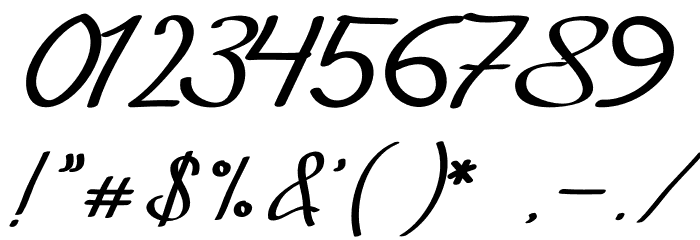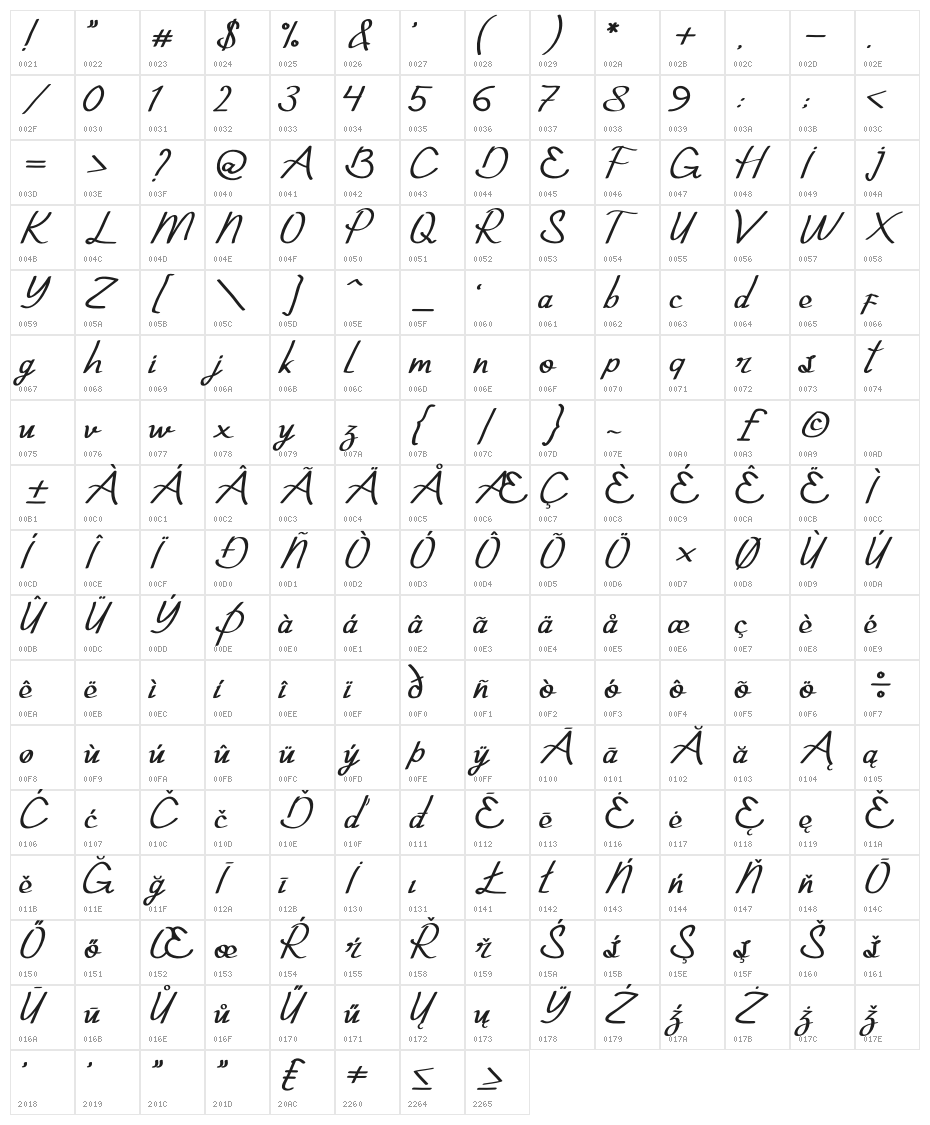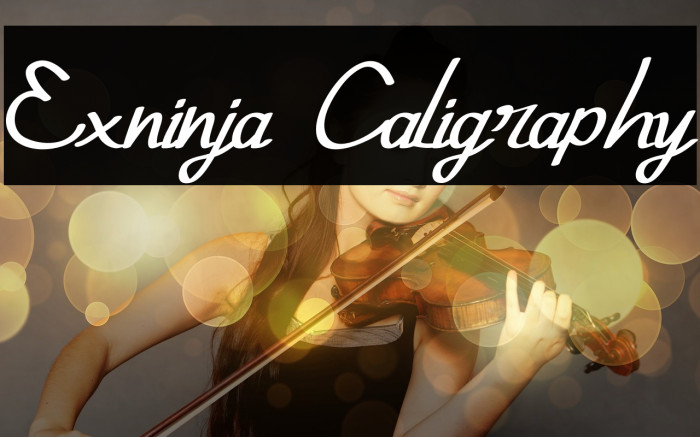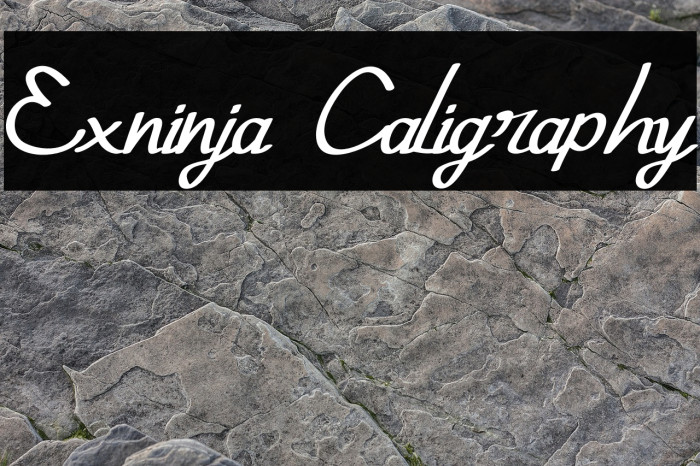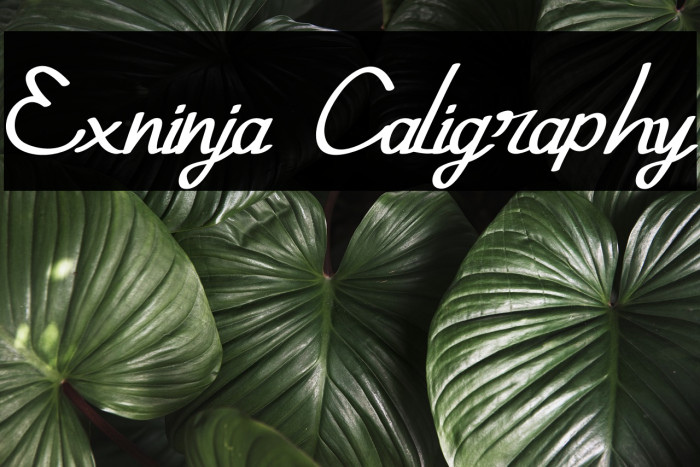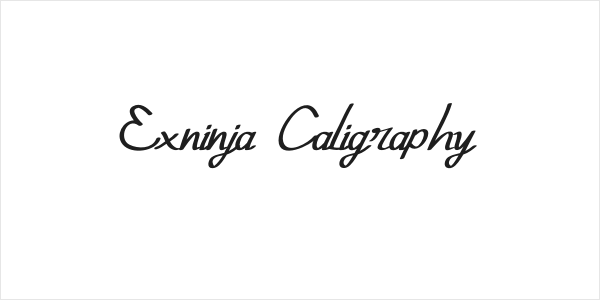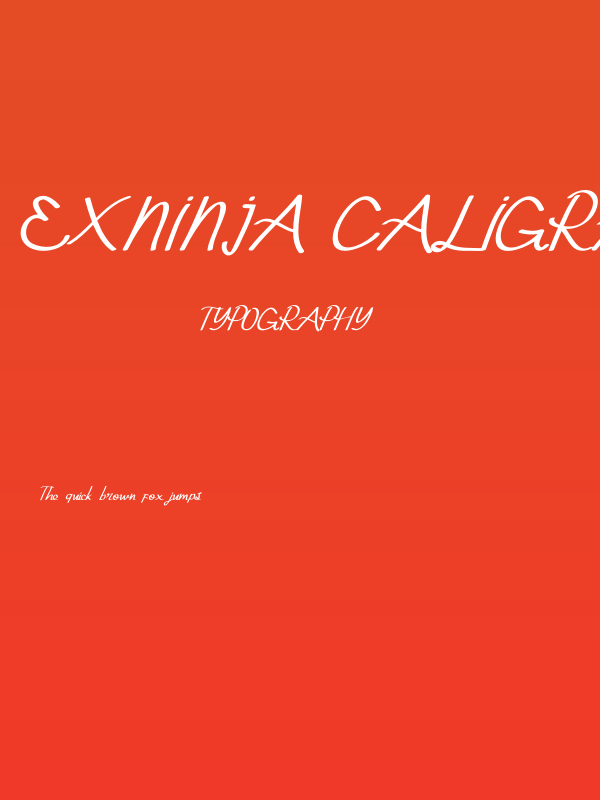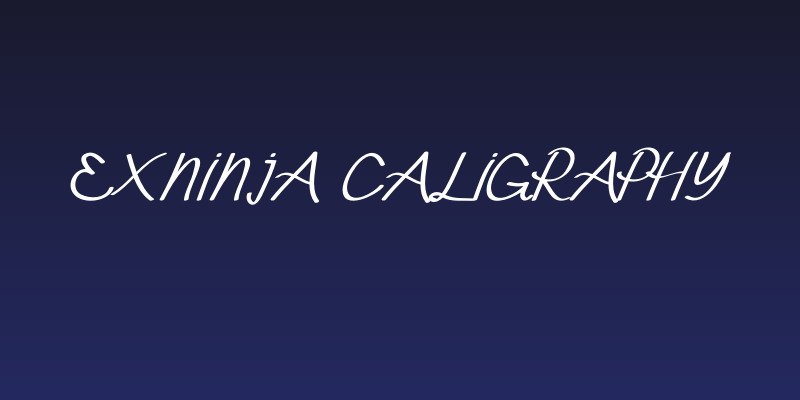
Exninja Caligraphy Font
Exninja Caligraphy Description
This elegant script font features a flowing, cursive style with a modern twist. The uppercase letters are tall and slightly slanted, while the lowercase letters maintain a consistent fluidity, creating a harmonious balance. The strokes are smooth and connected, giving the font a handwritten appearance. The numbers and special characters are designed to complement the letters, maintaining the same graceful curves and lines. This font exudes sophistication and is perfect for projects that require a touch of elegance and personal flair.
| Proposed Projects | Ideal for wedding invitations, greeting cards, branding, and elegant logos. |